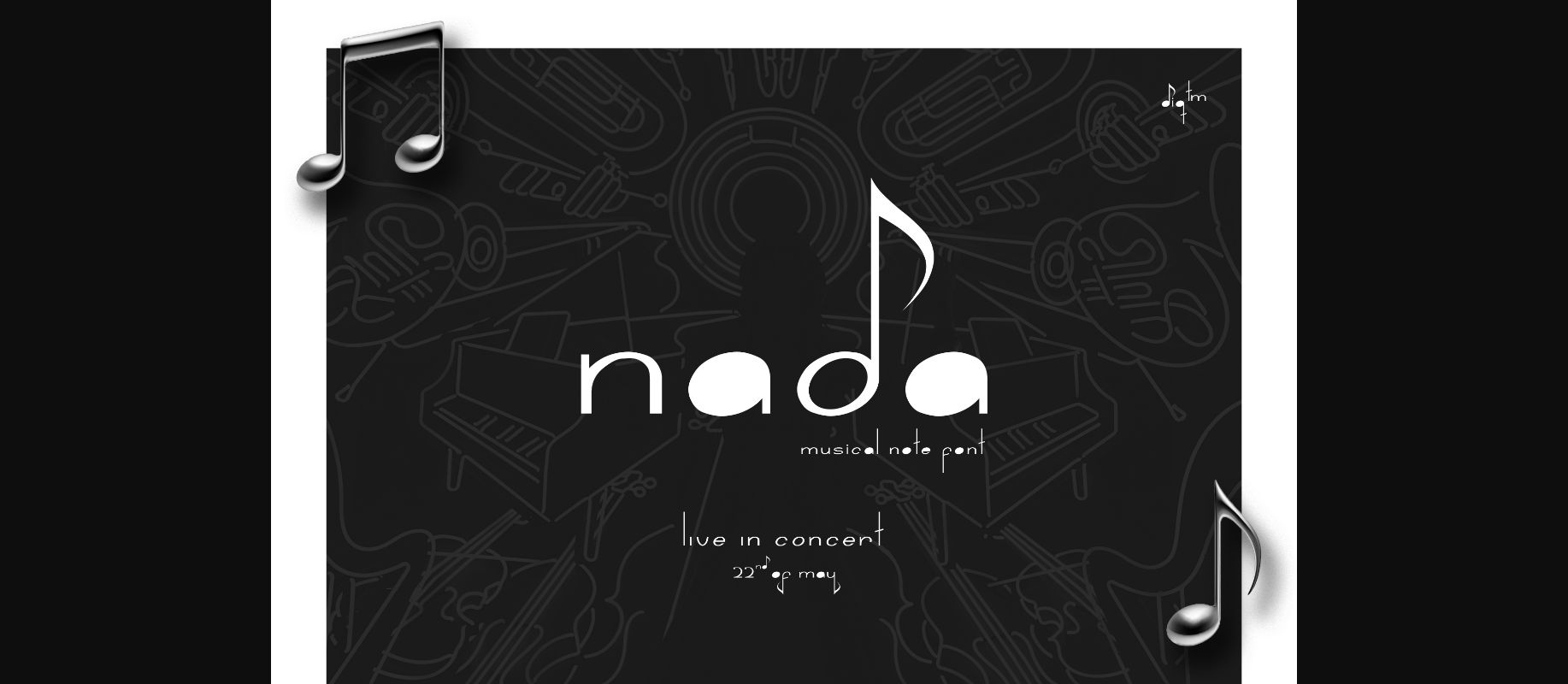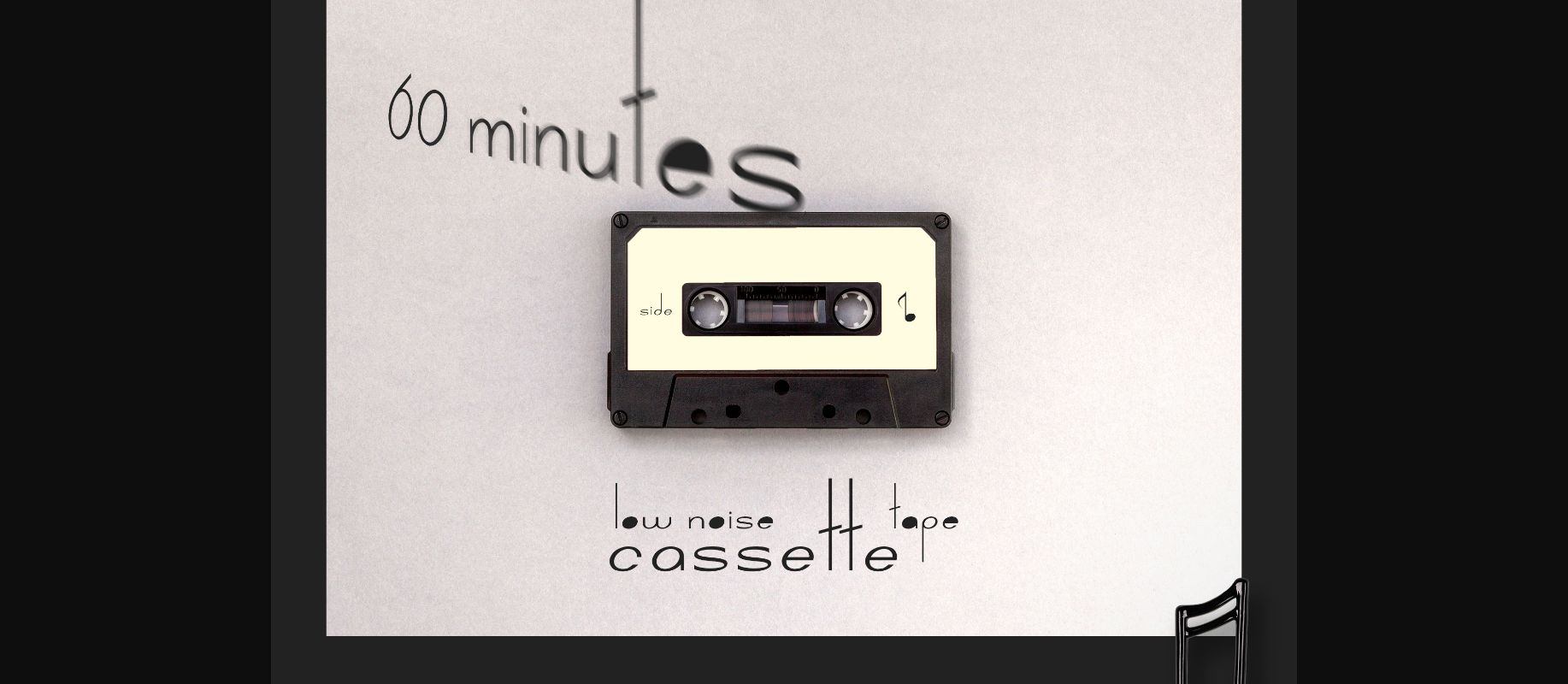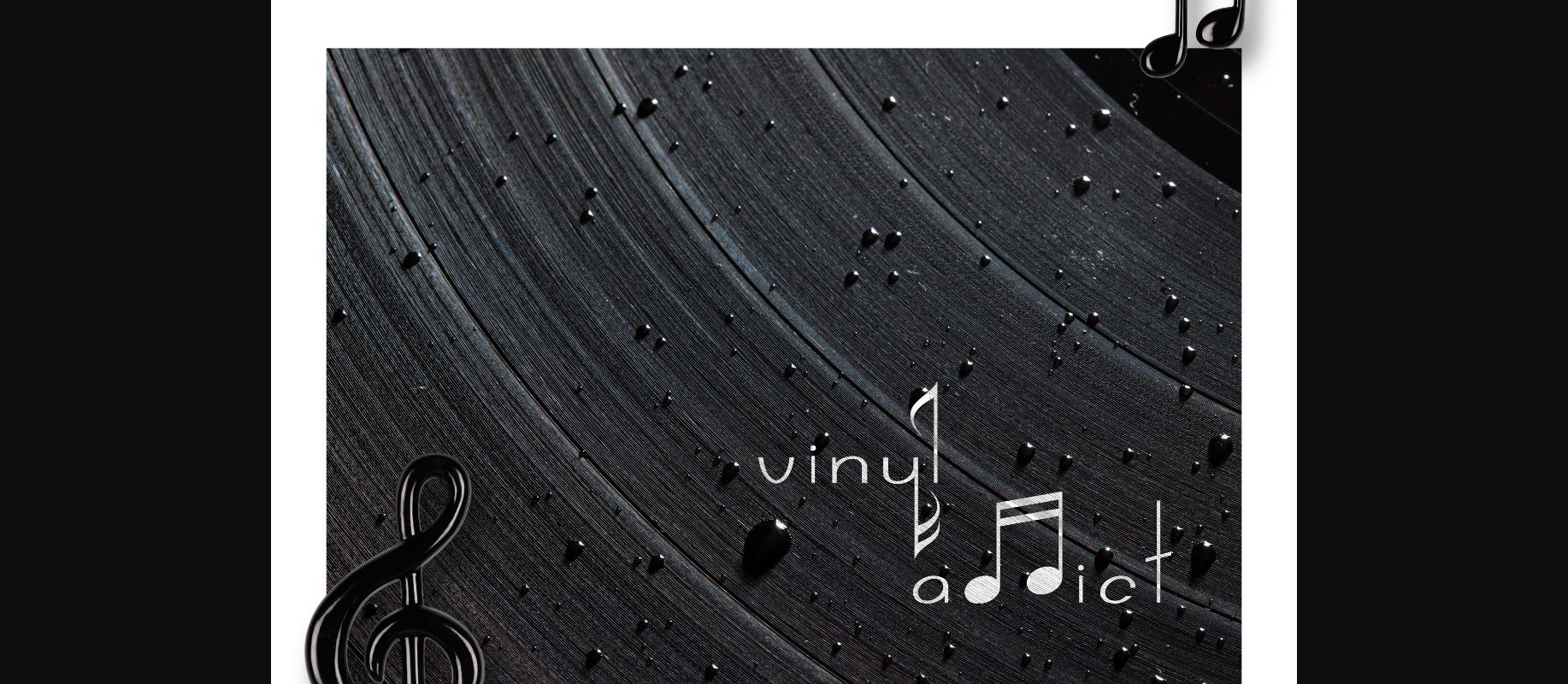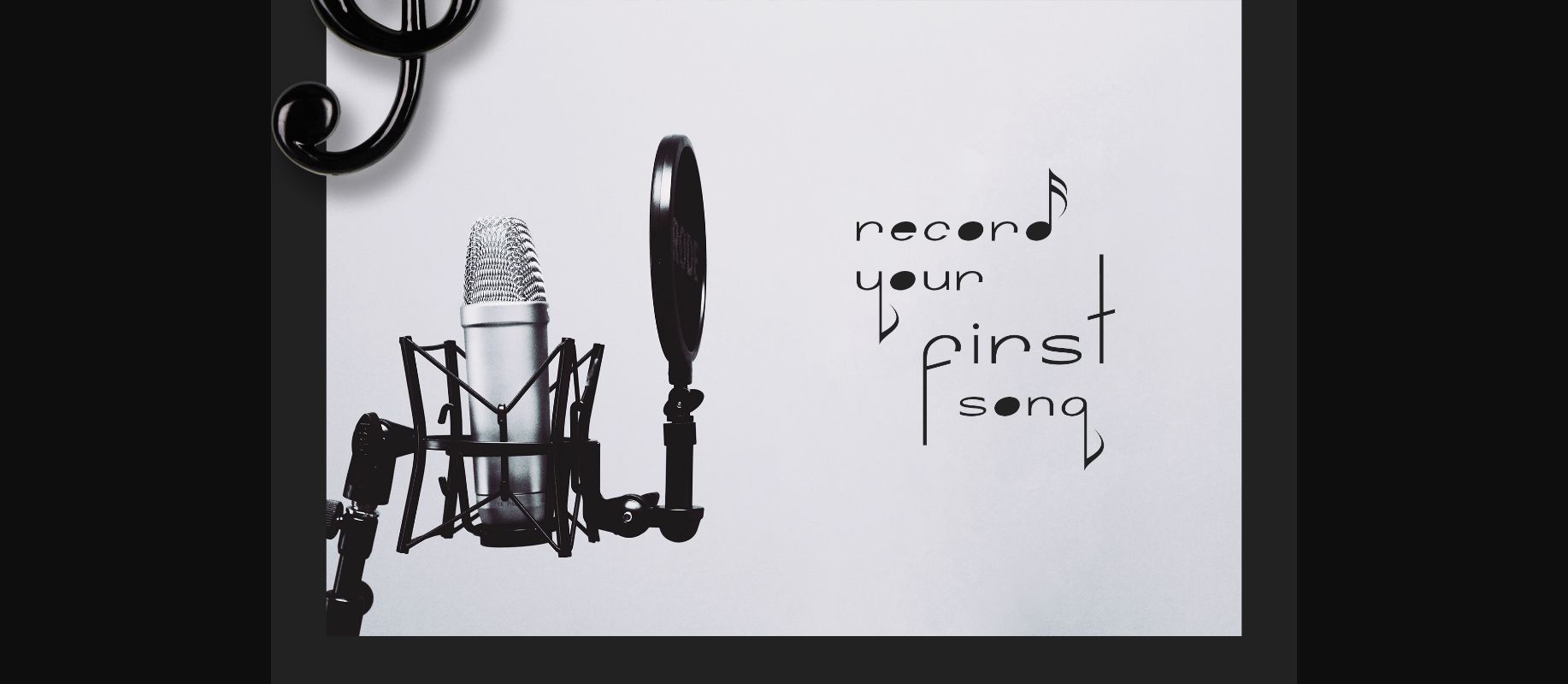
Nada Font
About Nada Font
Inspired by music notes, Nada is a stunning decorative font with a unique flavor. It will add an elegant twist to any music-themed project!